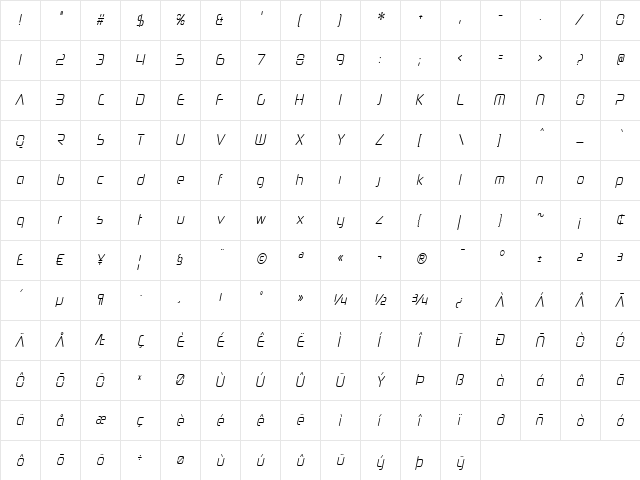
Neuropol Nova Cnd Lite Italic
Design Context for Neuropol Nova Cnd Lite Typeface
Neuropol Nova Cnd Lite offers clean, dependable letterforms without strong stylistic allegiance, making it a practical choice for designers who need flexibility. Its italic angle brings a sense of urgency and motion to the letterforms.
Pro Tip: Use Neuropol Nova Cnd Lite for emphasis, pull quotes, and subheadings where its slanted energy can add rhythm to the layout.